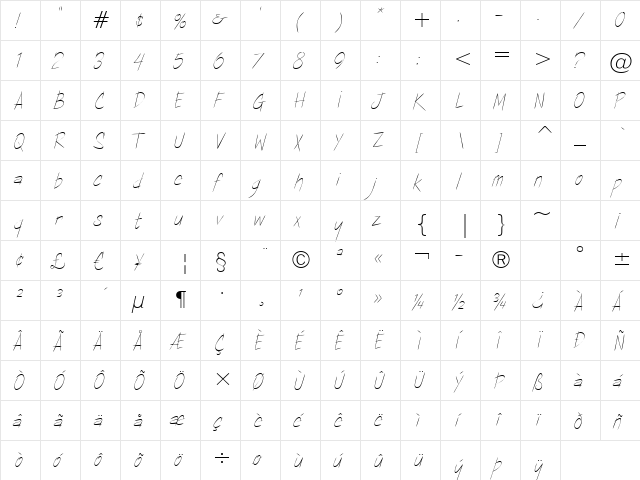
Copa Sharp BTN Light Regular
Design Context for Copa Sharp BTN Light Typeface
Copa Sharp BTN Light is a composed and adaptable typeface that performs quietly and consistently across a wide range of design contexts. The delicate stroke weight brings airiness and refinement to layouts.